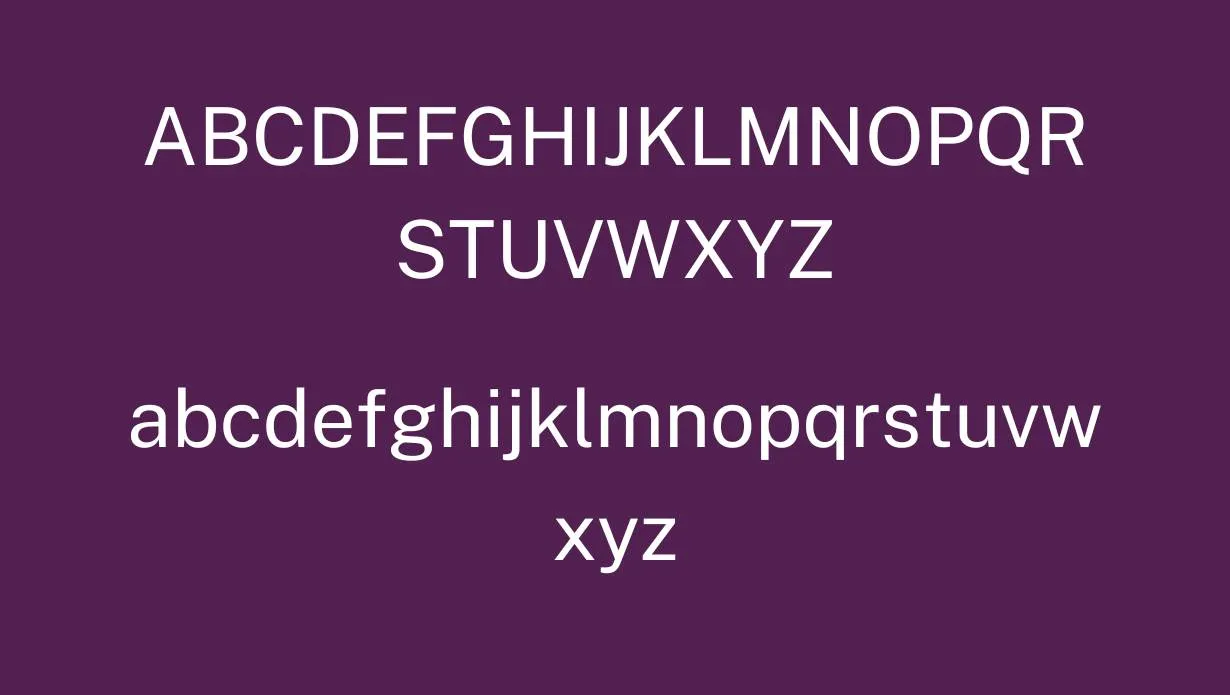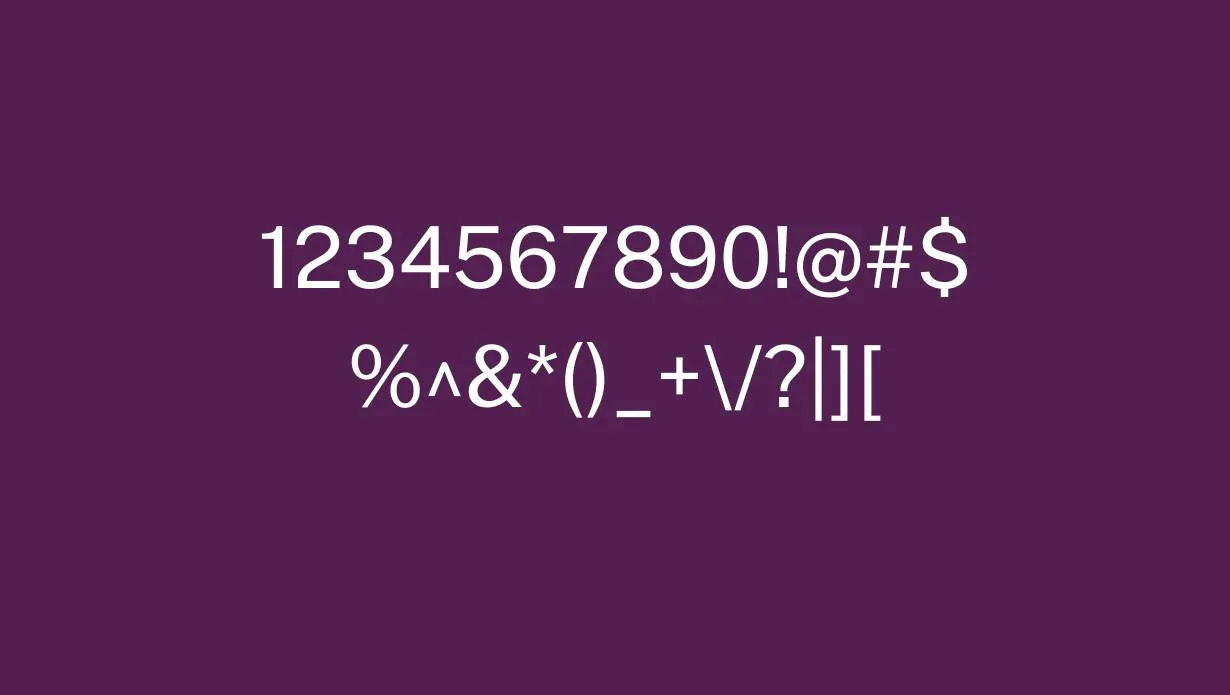
Public Font is a Sans Serif font that has a cleared texture appearance. It’s important for making things look nice, like signs and websites. People can use “Public Font” without any special rules.
Public Font Family
Text generators can easily make different words and sentences using “Public Font.” This helps people create all sorts of things, like posters and messages, in a simple and clear way. You can also pair this typeface with Arial Font to make your designs more amazing.